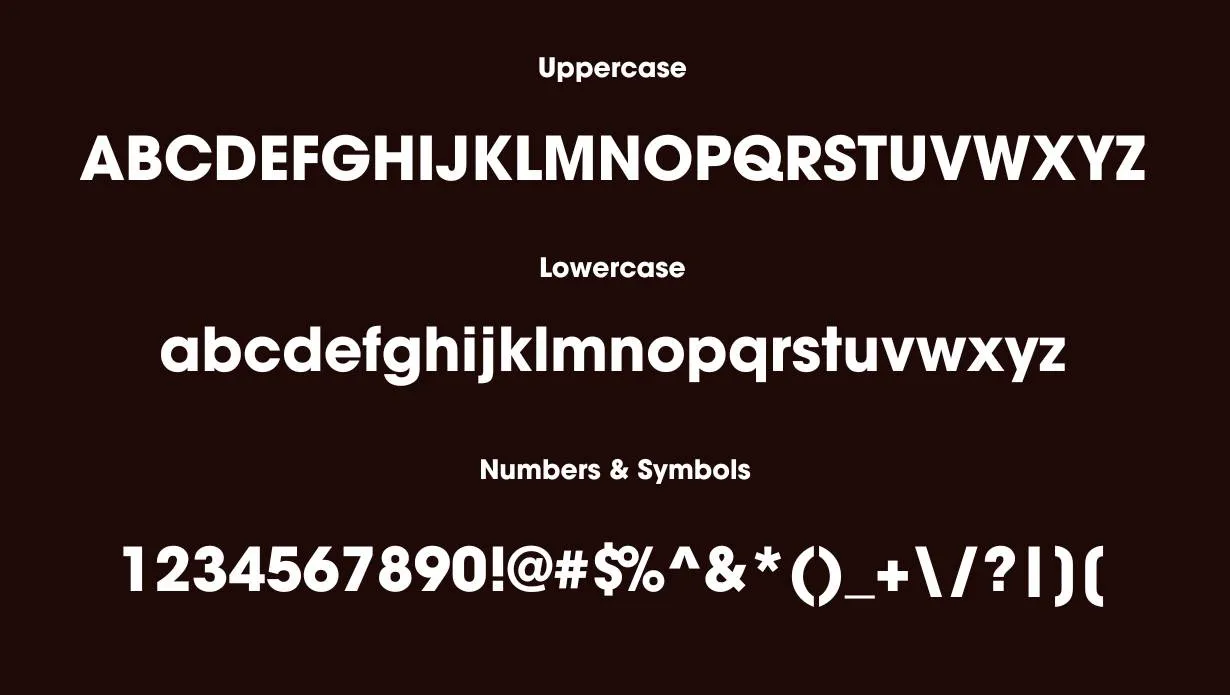
UTM Avo Font is a sleek and contemporary typeface that focuses on simplicity and clarity. With a balanced weight and medium width, this font is adaptable for various uses, whether in print or digital.
The technical details highlight its precision, making it an excellent choice for projects that require a contemporary and professional look without unnecessary frills.
| Name | UTM Avo Font |
| Designer | Max Miedinger |